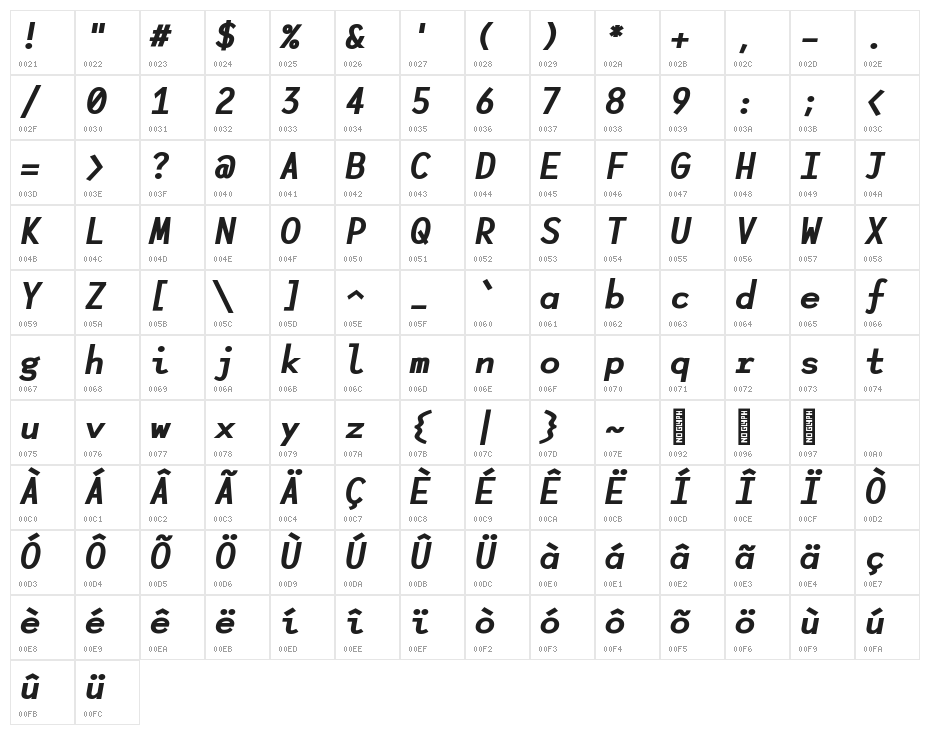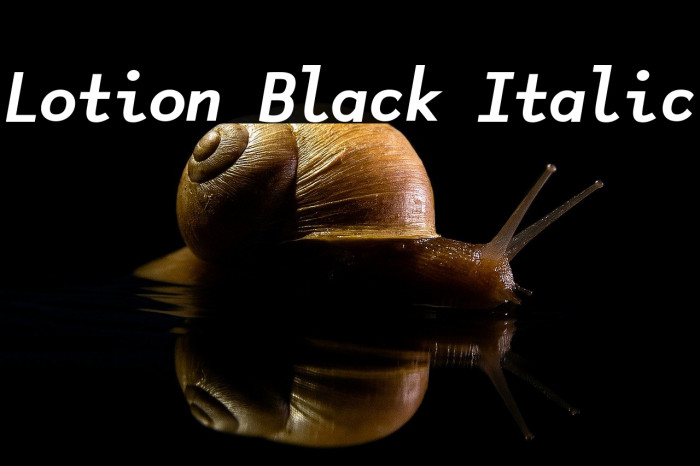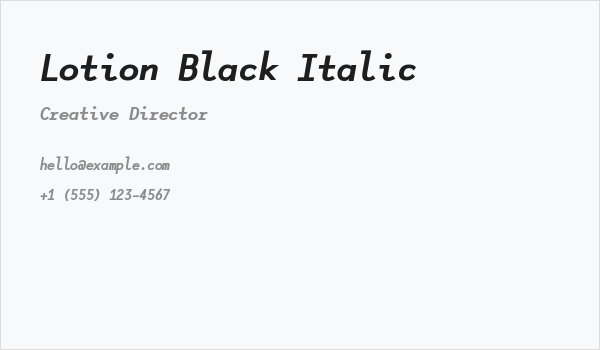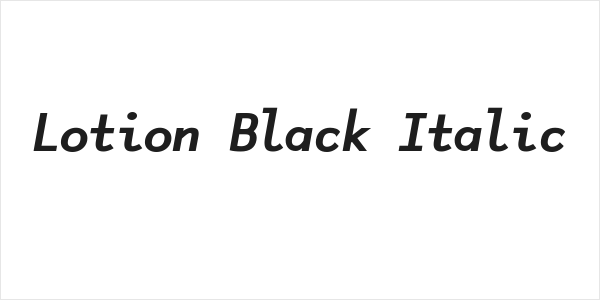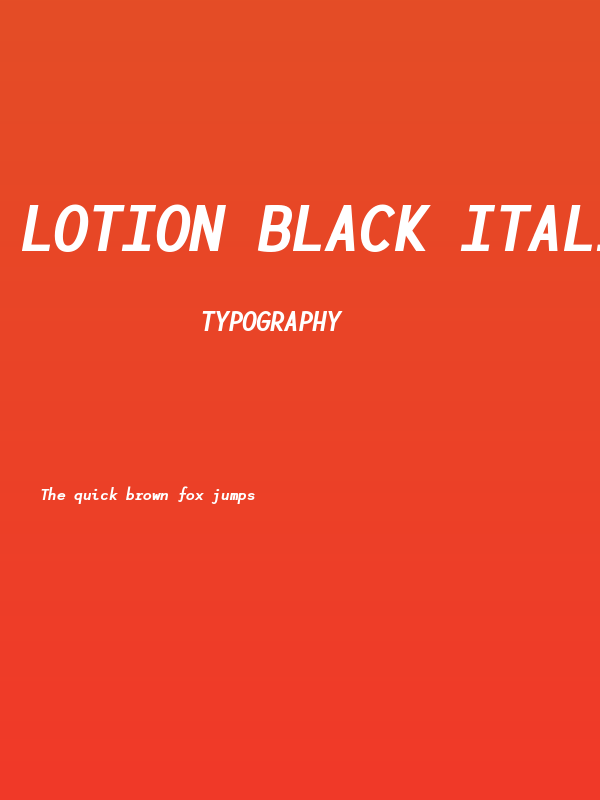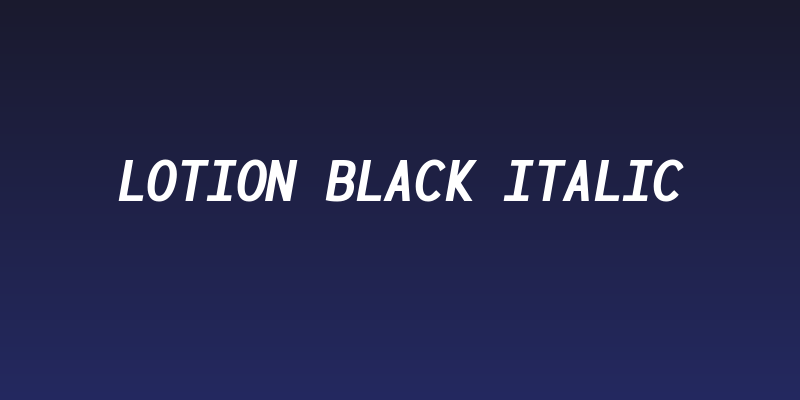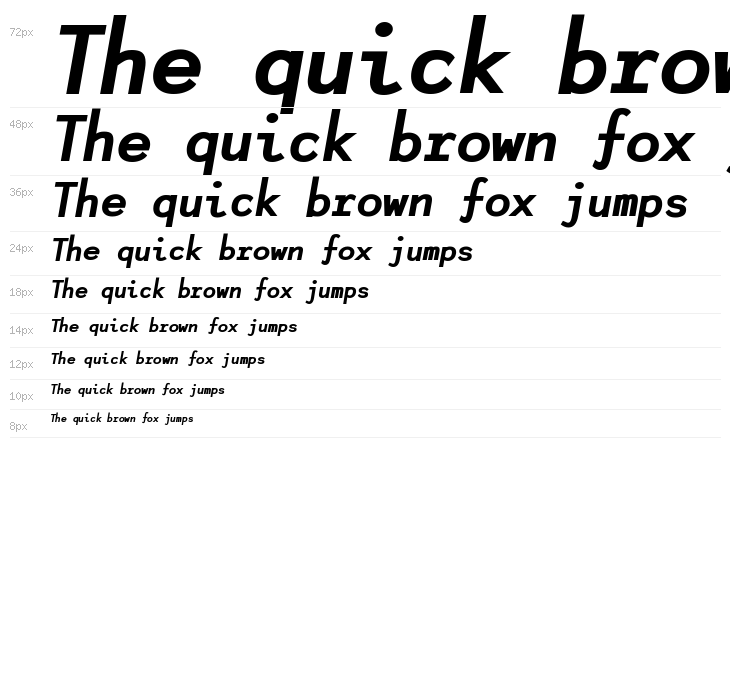
Lotion Black Italic Font
Lotion Black Italic Description
This font features a bold and italicized style, combining strong, thick strokes with a forward slant that gives it a dynamic and assertive appearance. The uppercase letters are robust and commanding, while the lowercase letters maintain a consistent weight, enhancing readability. Numbers and special characters are designed with the same boldness, ensuring uniformity across all glyphs. The overall design is modern and impactful, suitable for making statements in any text. The italic slant adds a sense of movement and urgency, making it ideal for attention-grabbing headlines or titles.
| Proposed Projects | Ideal for branding, advertising, headlines, and poster design. |